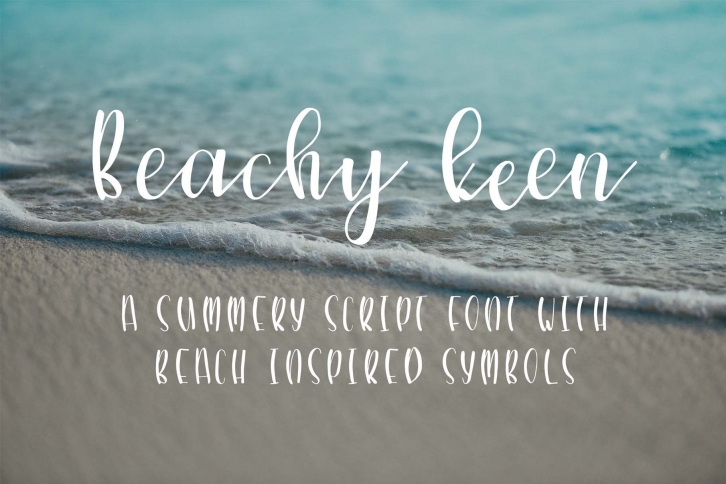
Bring summer vibes to your designs with this beach-inspired script font!
Beachy Keen script font includes all English characters and punctuation, 24 ligatures and stylistic alternatives to guarantee a natural handwritten feel, All symbols and numbers, and 12 beach-themed symbols.
Standard uppercase and cursive lowercase characters gives you two fonts in one! Great for digital invitations and social media posts!